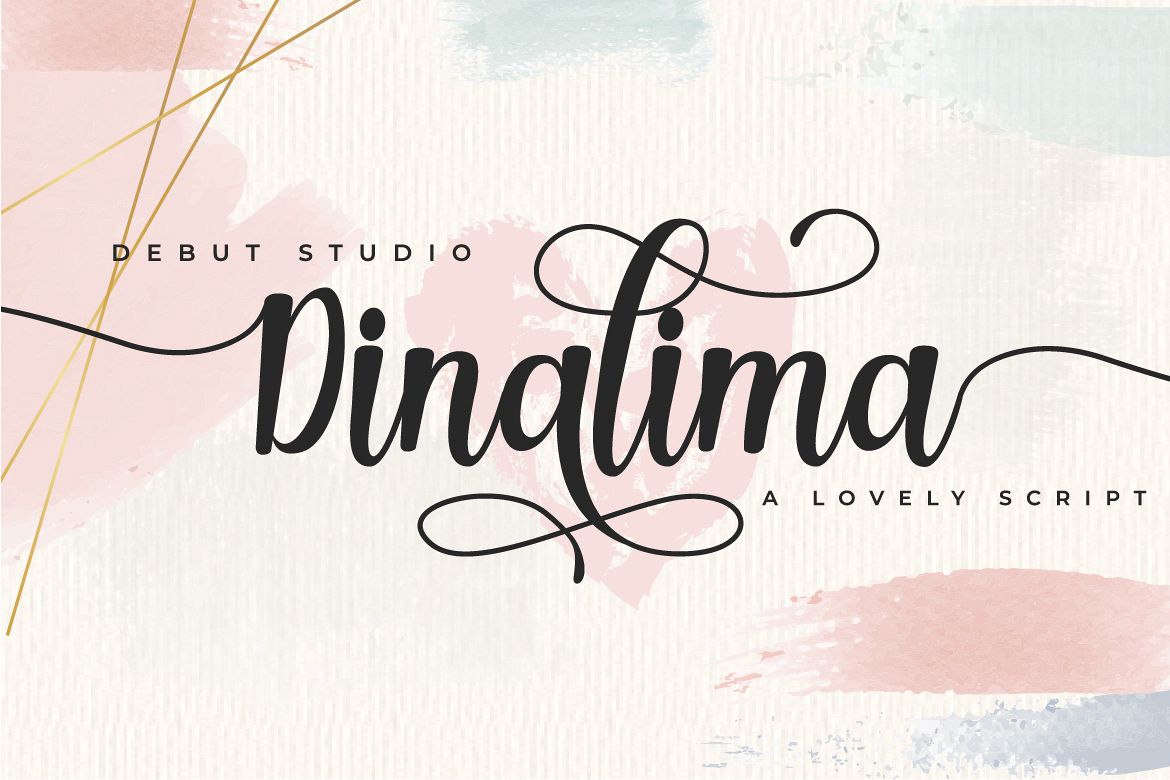
Dinalima Script
Debut Studio Presents, Dinalima Script
A Lovely script font with much stylistic alternate option!
This font is suitable for wedding invitation, poster, quote, label, card name, and other stuff
- Alternate Stylistic Character